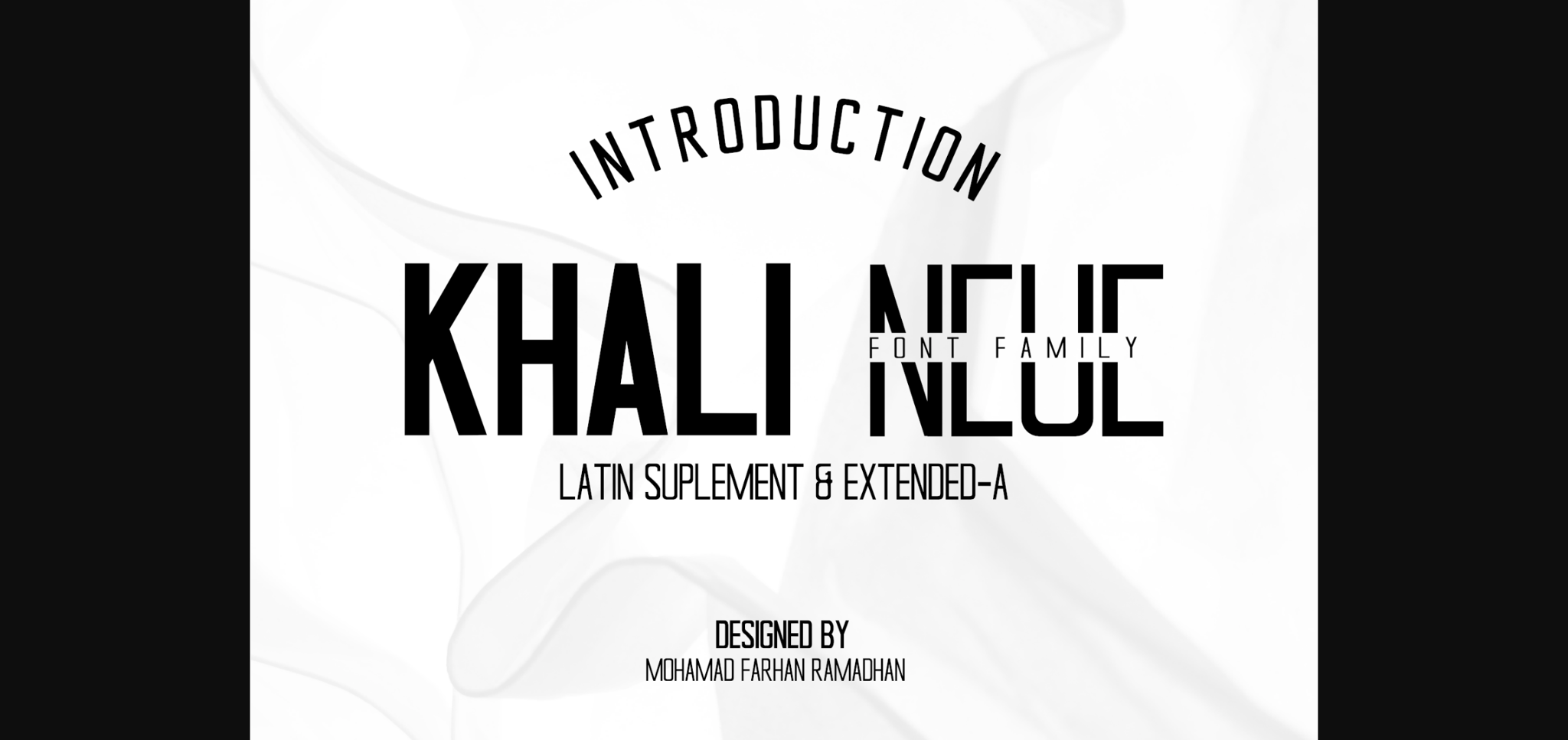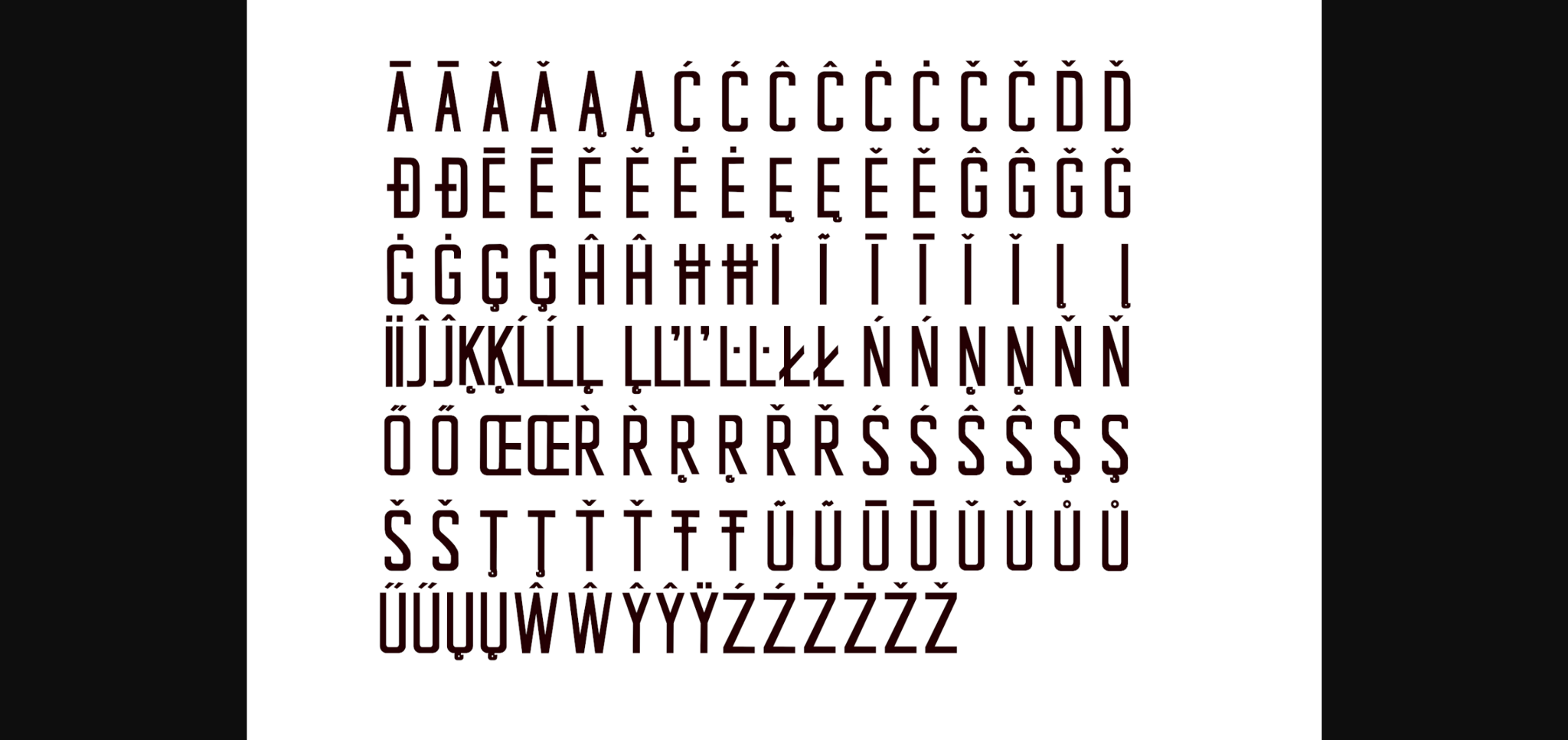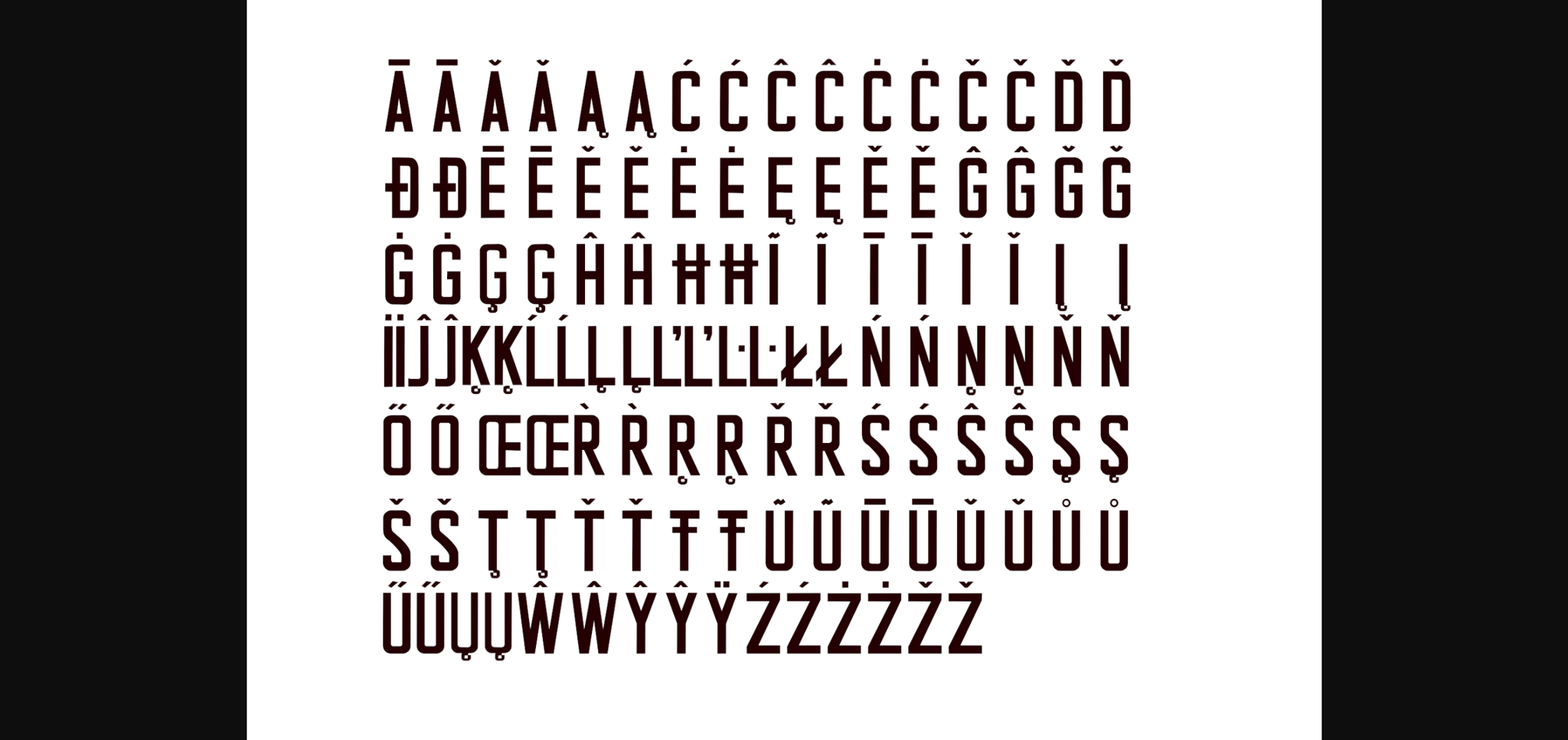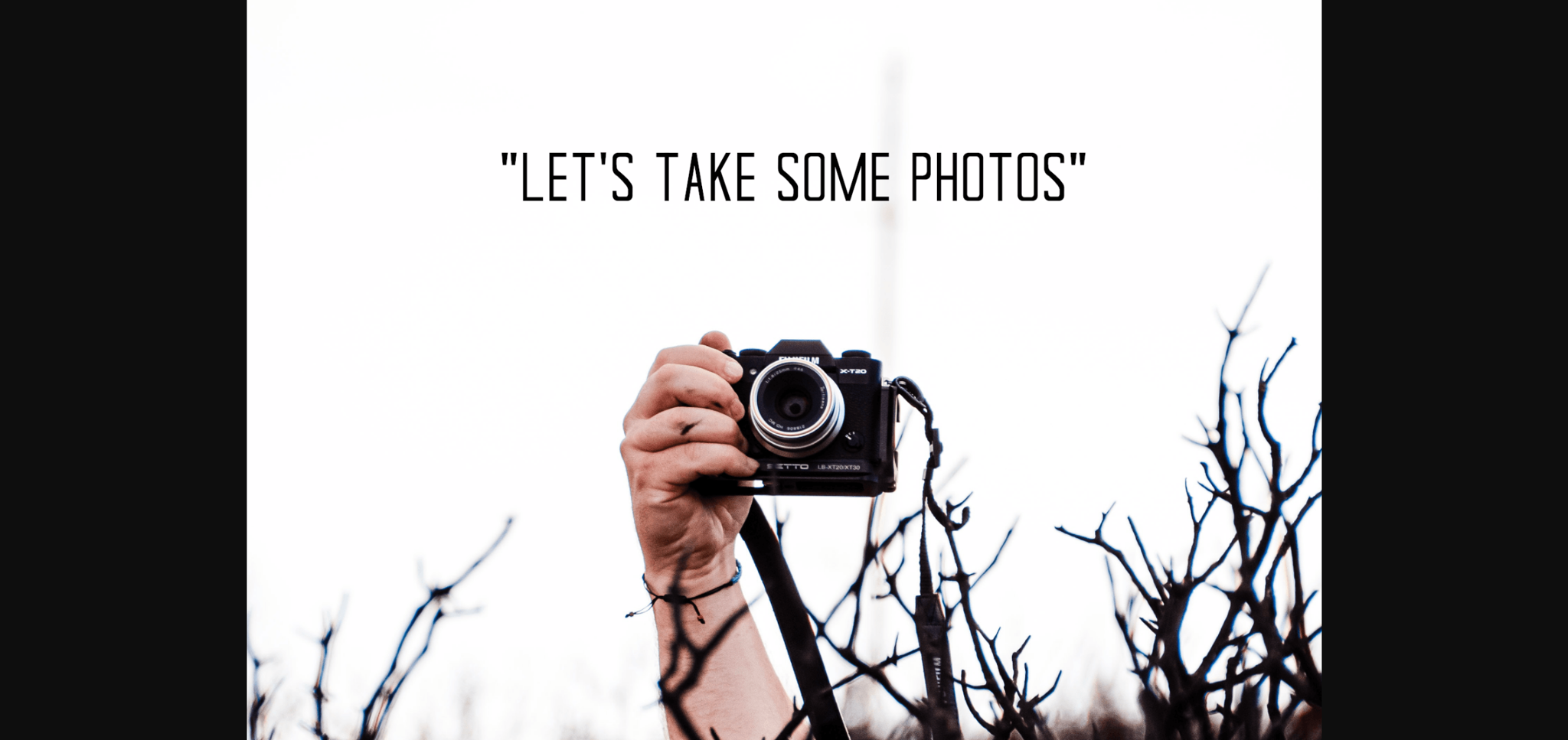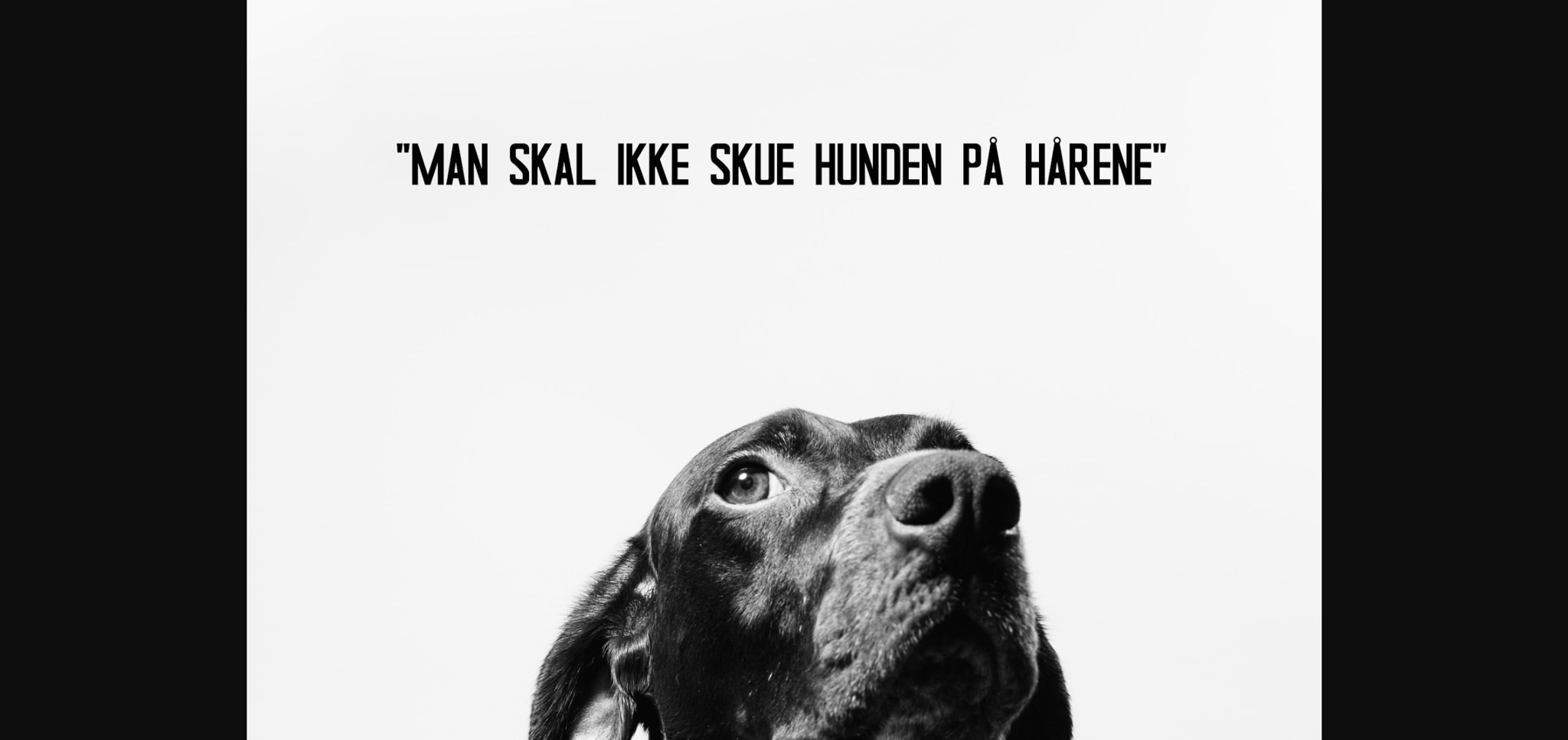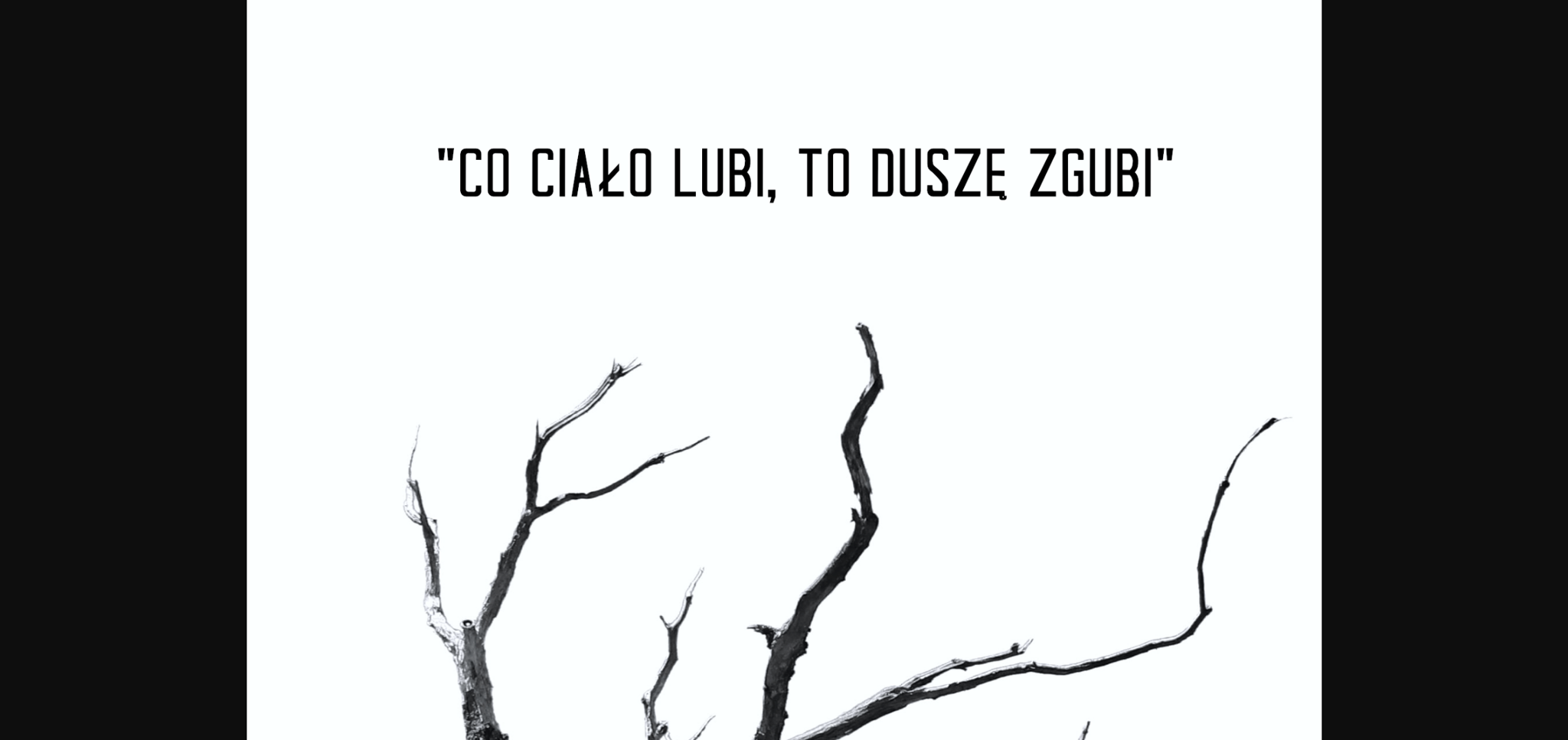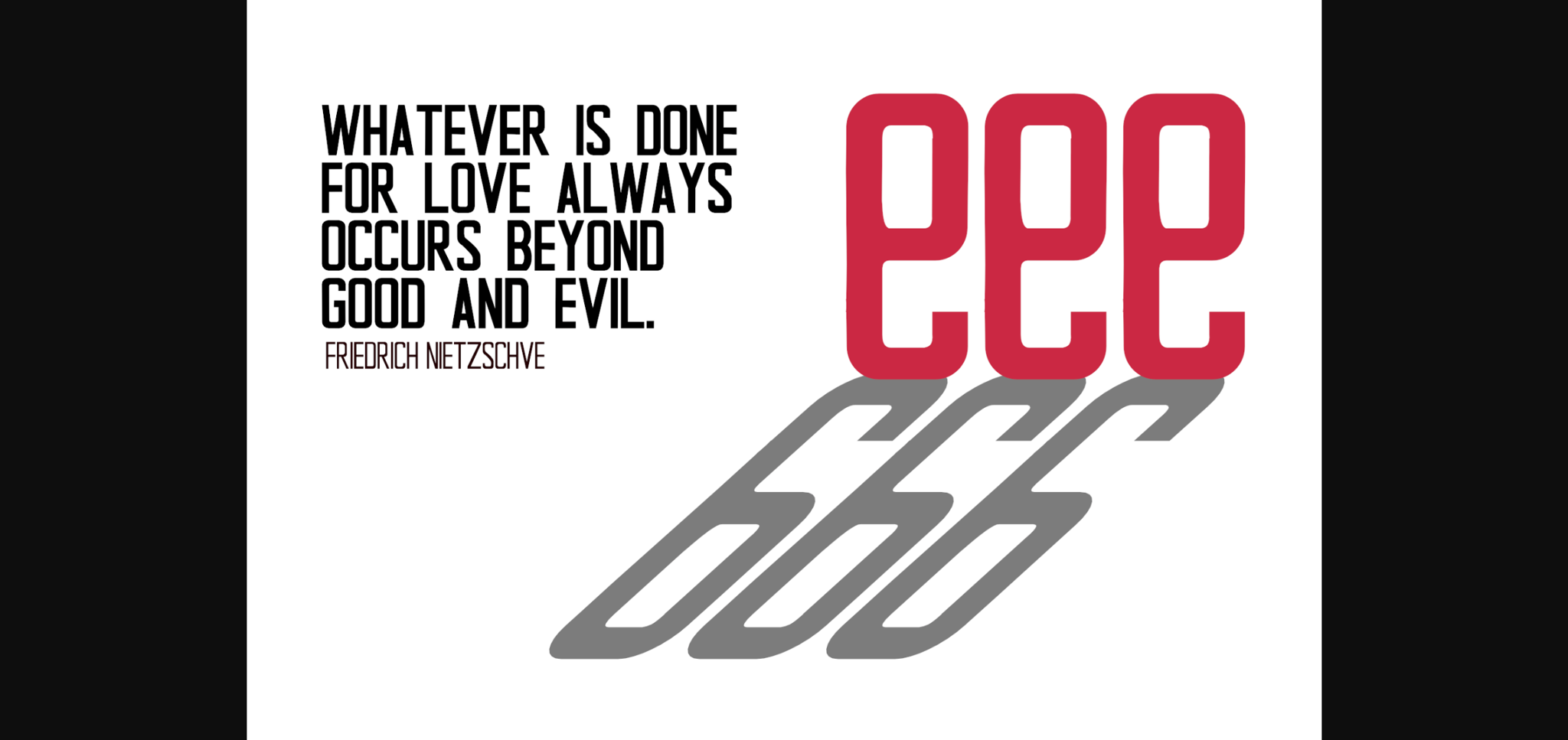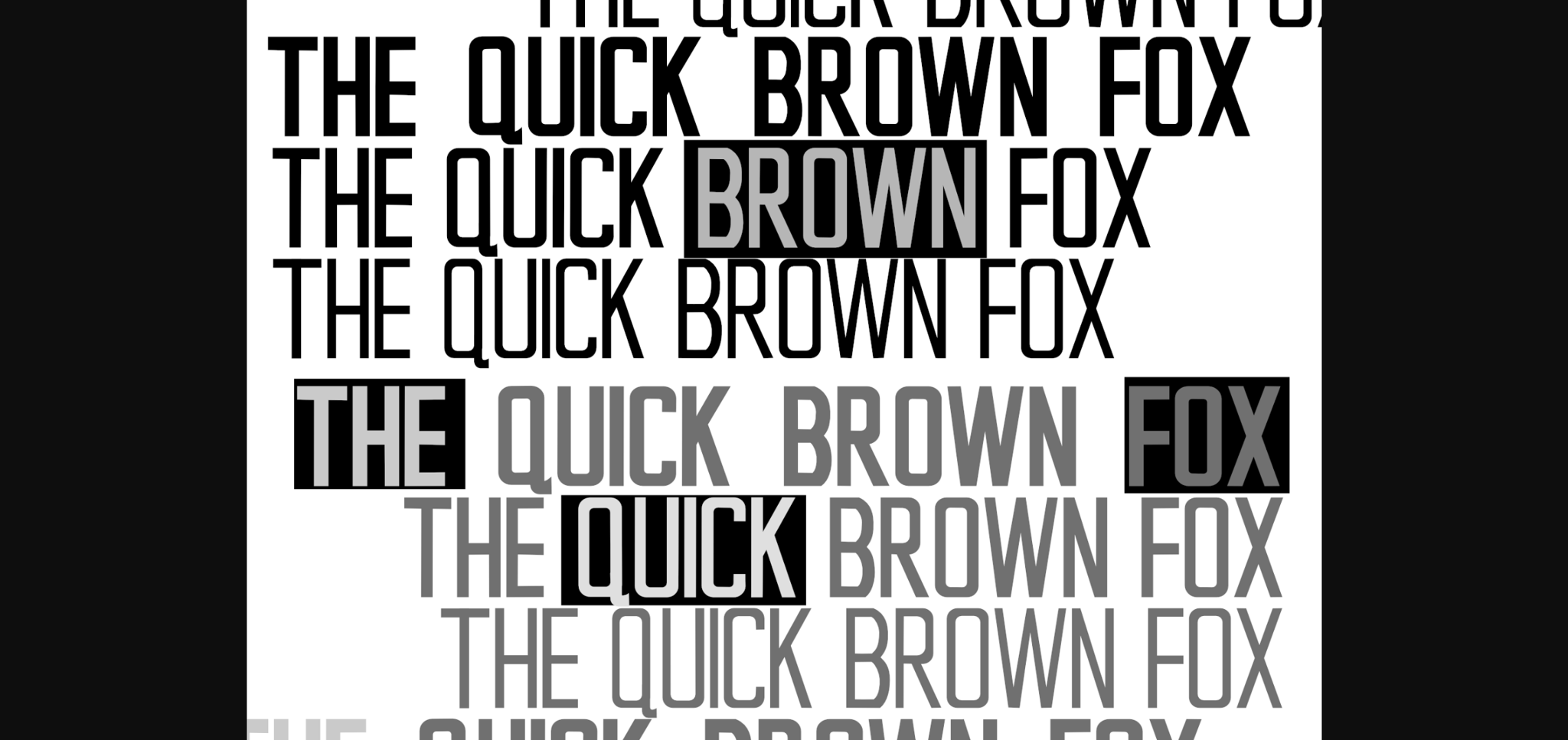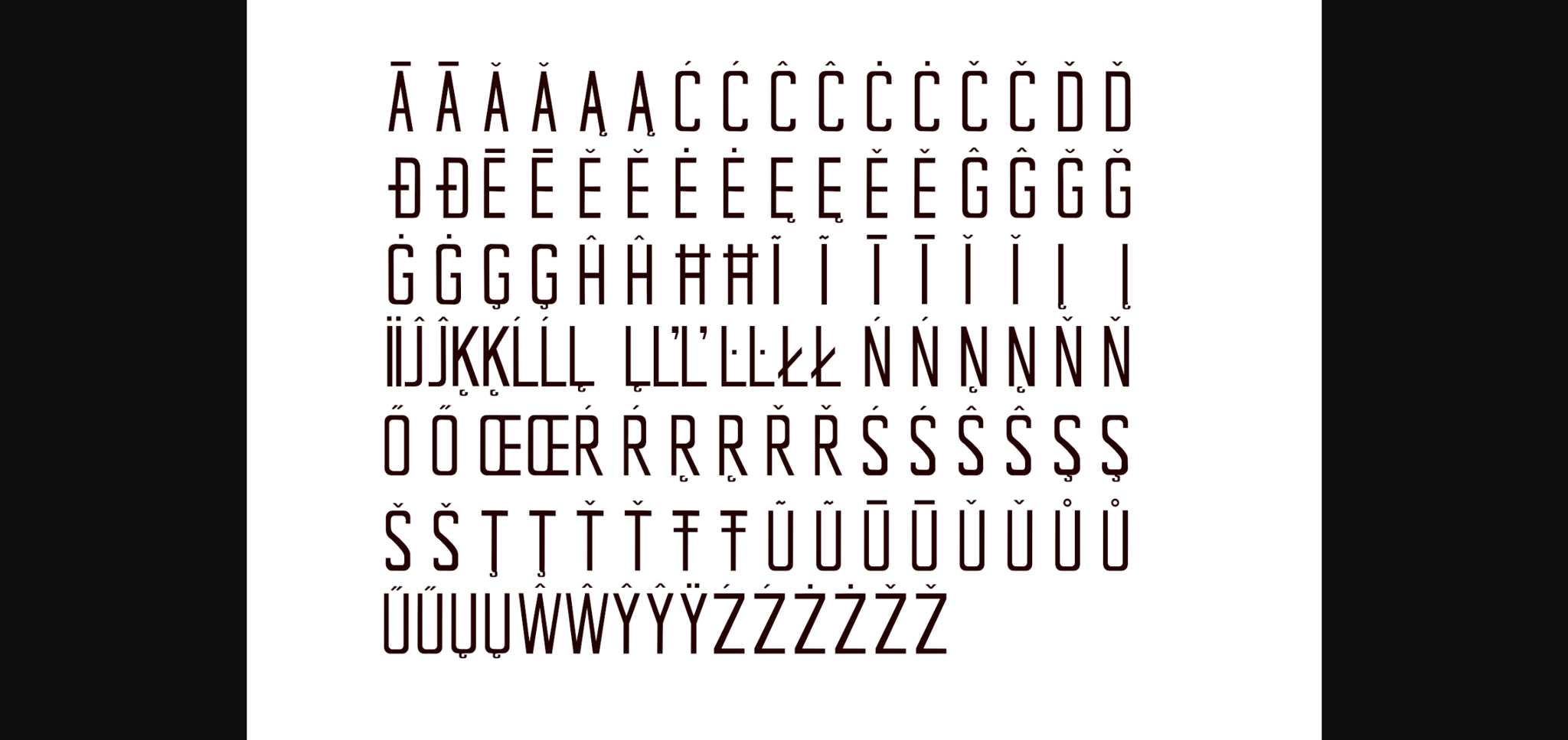
Khali Neue is a modern sans-serif font family that has a plain stroke that looks elegant and aesthetic. Incredibly versatile, this font would look great in a wide variety of contexts.